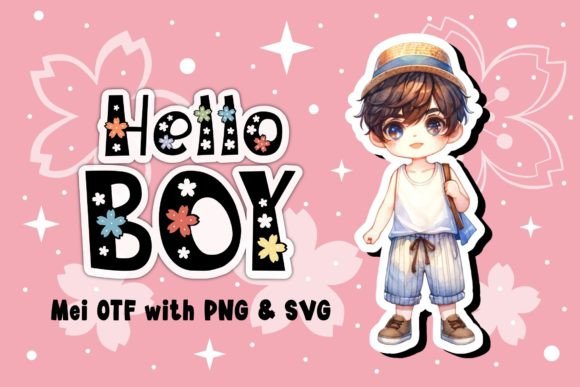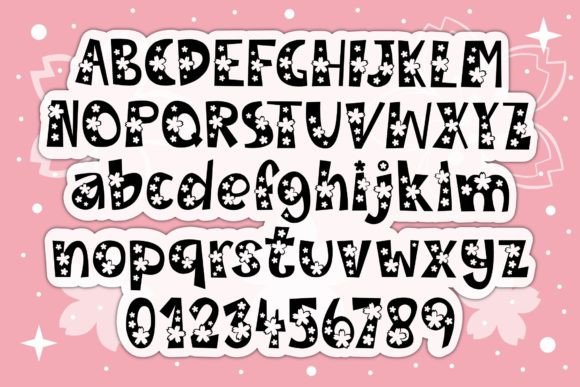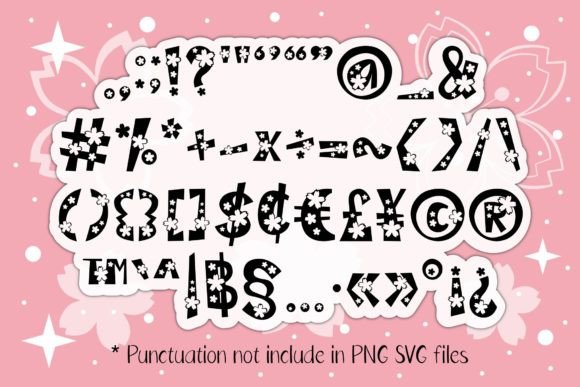
Mei Font
Mei is a lovely and sweet font. This unique font grabs attention in print, packaging, and social media, making it perfect for creating a distinctive and memorable visual impact.